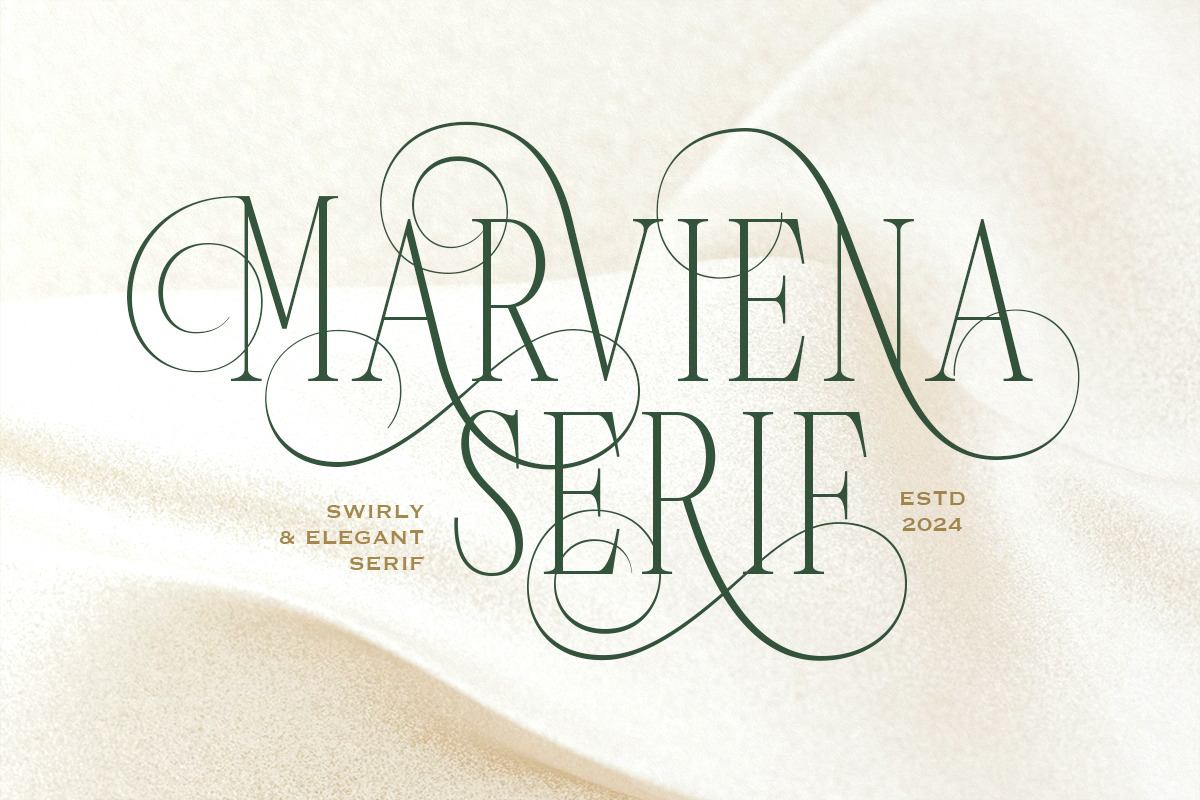
Please note, to use this font for commercial purposes, you must purchase the full version. Marviena is a luxurious and swirly serif font that combines elegance with intricate design elements, making it perfect for high-end branding, invitations, and creative projects. With its elegant curves and sophisticated letterforms, this font adds a touch of refinement and style to your work. Whether you're designing for a premium brand, a wedding invitation, or an upscale event, Marviena brings timeless beauty and sophistication to your designs. Test it out and enjoy free download access for personal use. Experience the swirly elegance of Marviena - Swirly Elegant Serif Font Free Download before purchasing the commercial license. Add a graceful, sophisticated touch to your designs with Marviena.